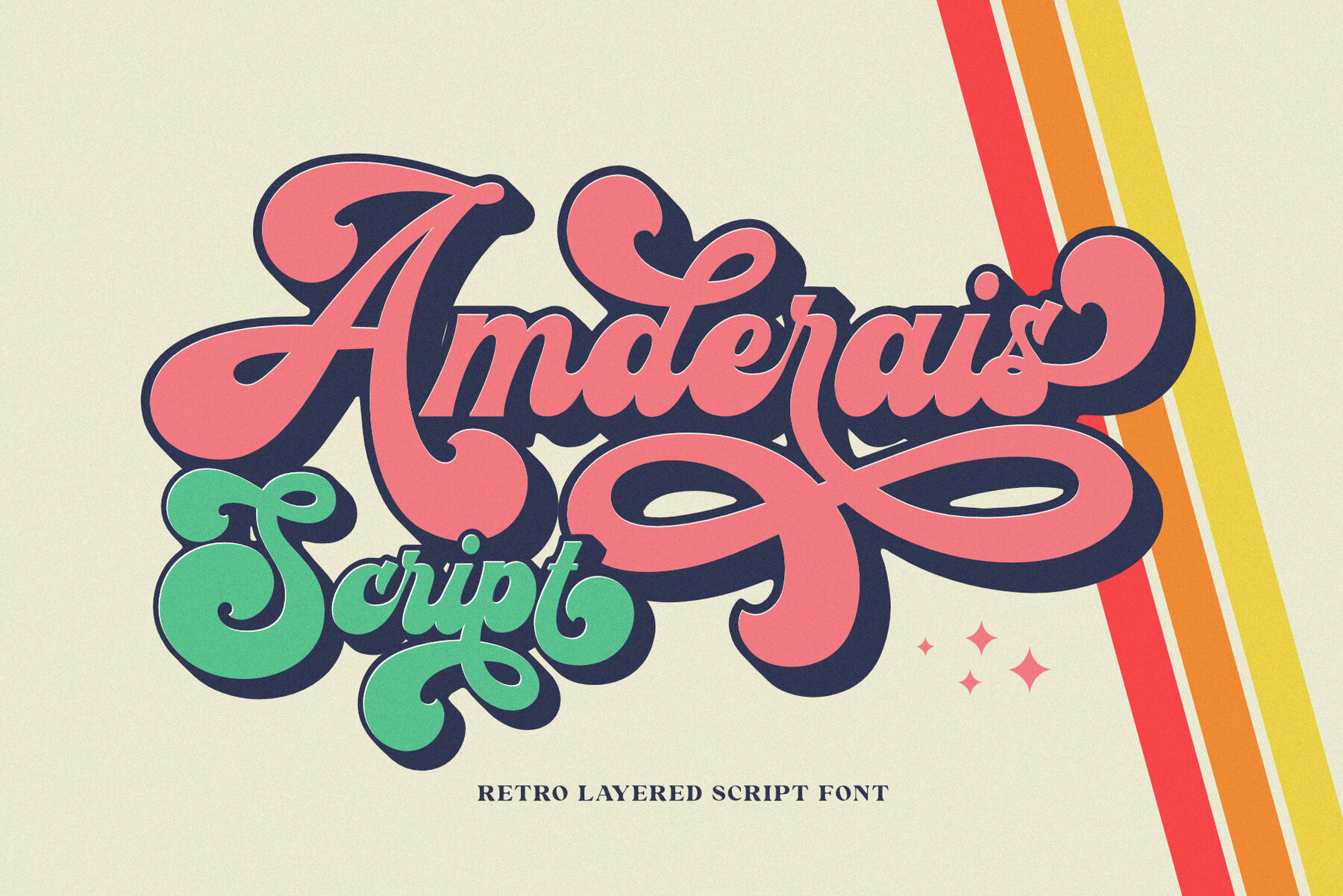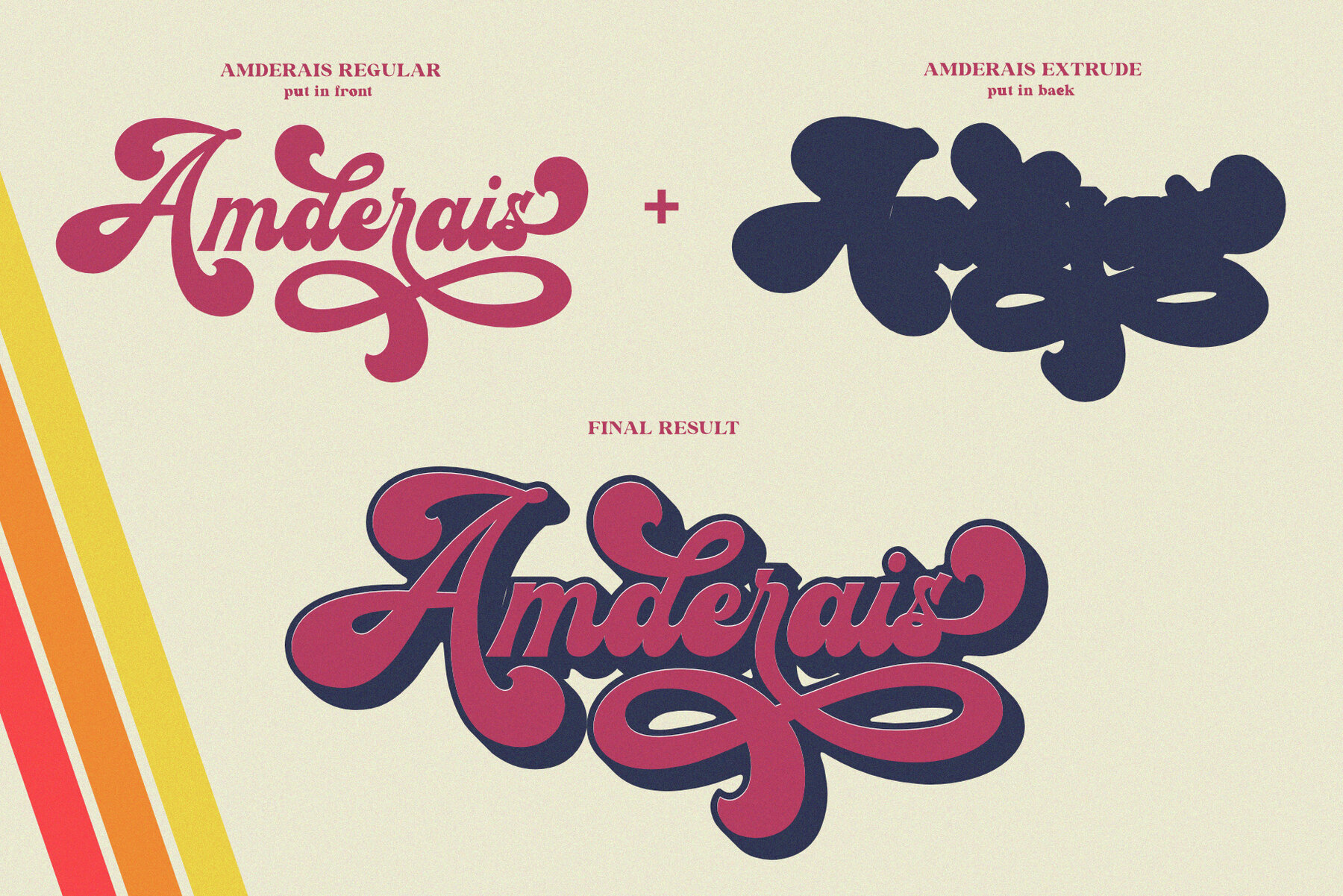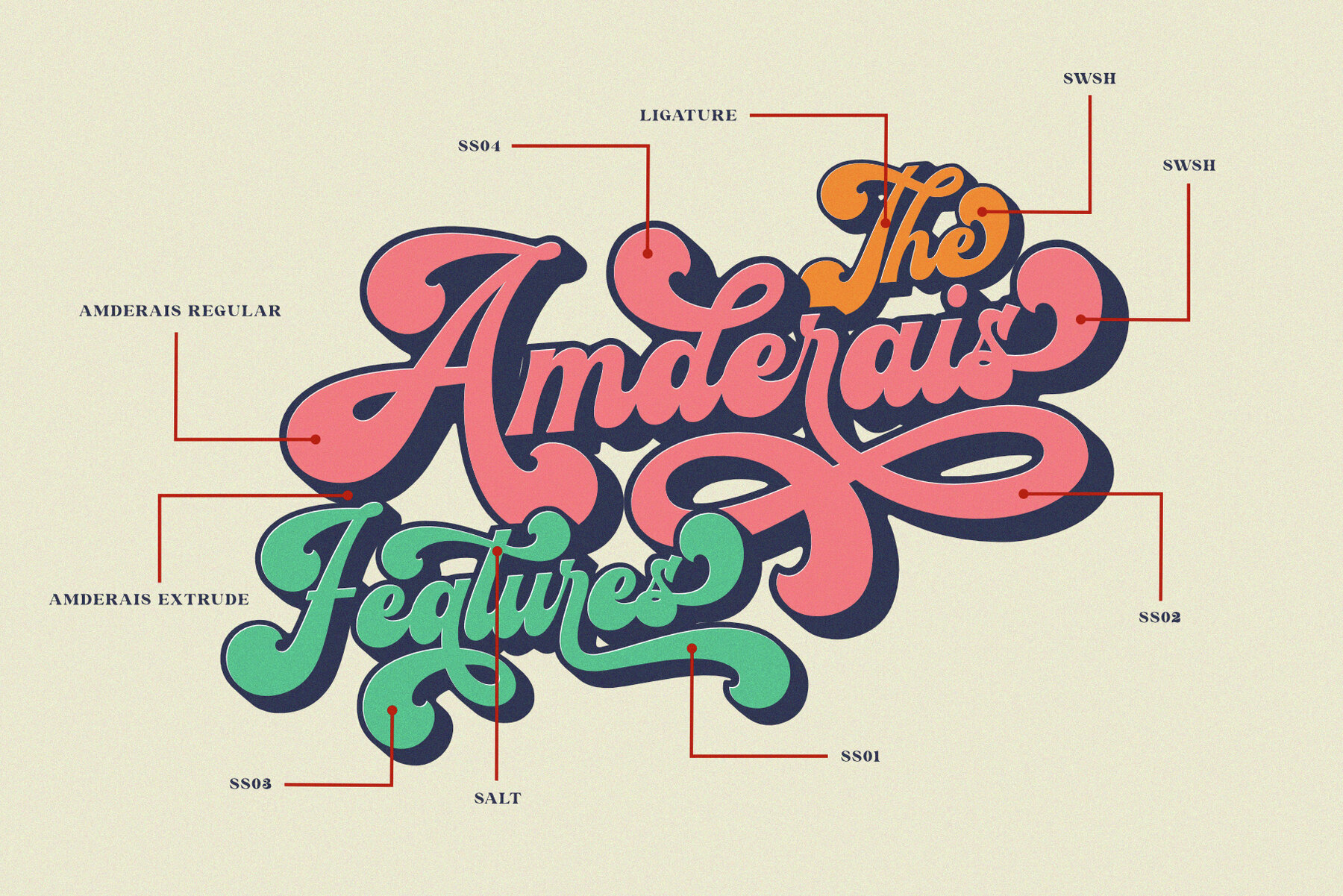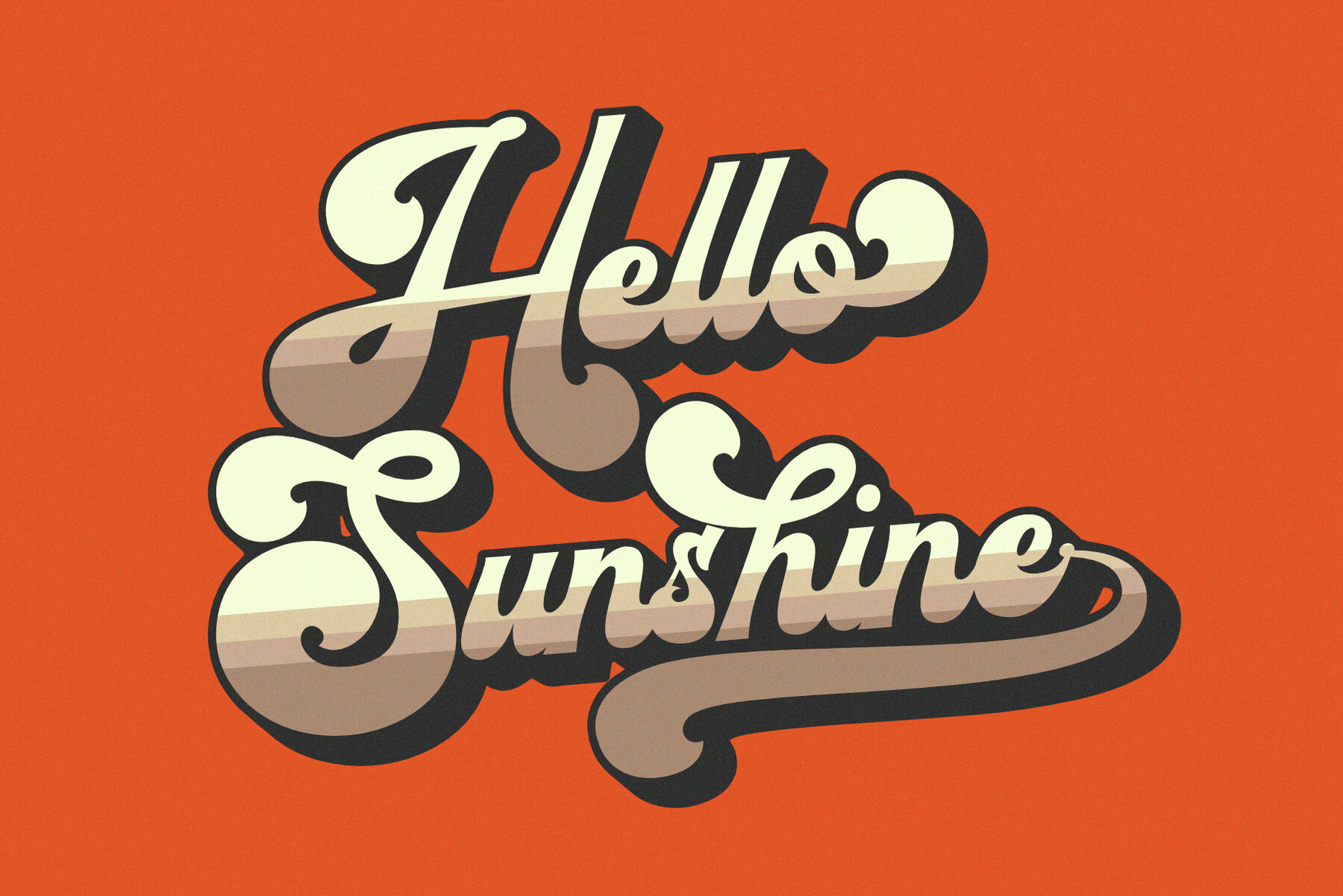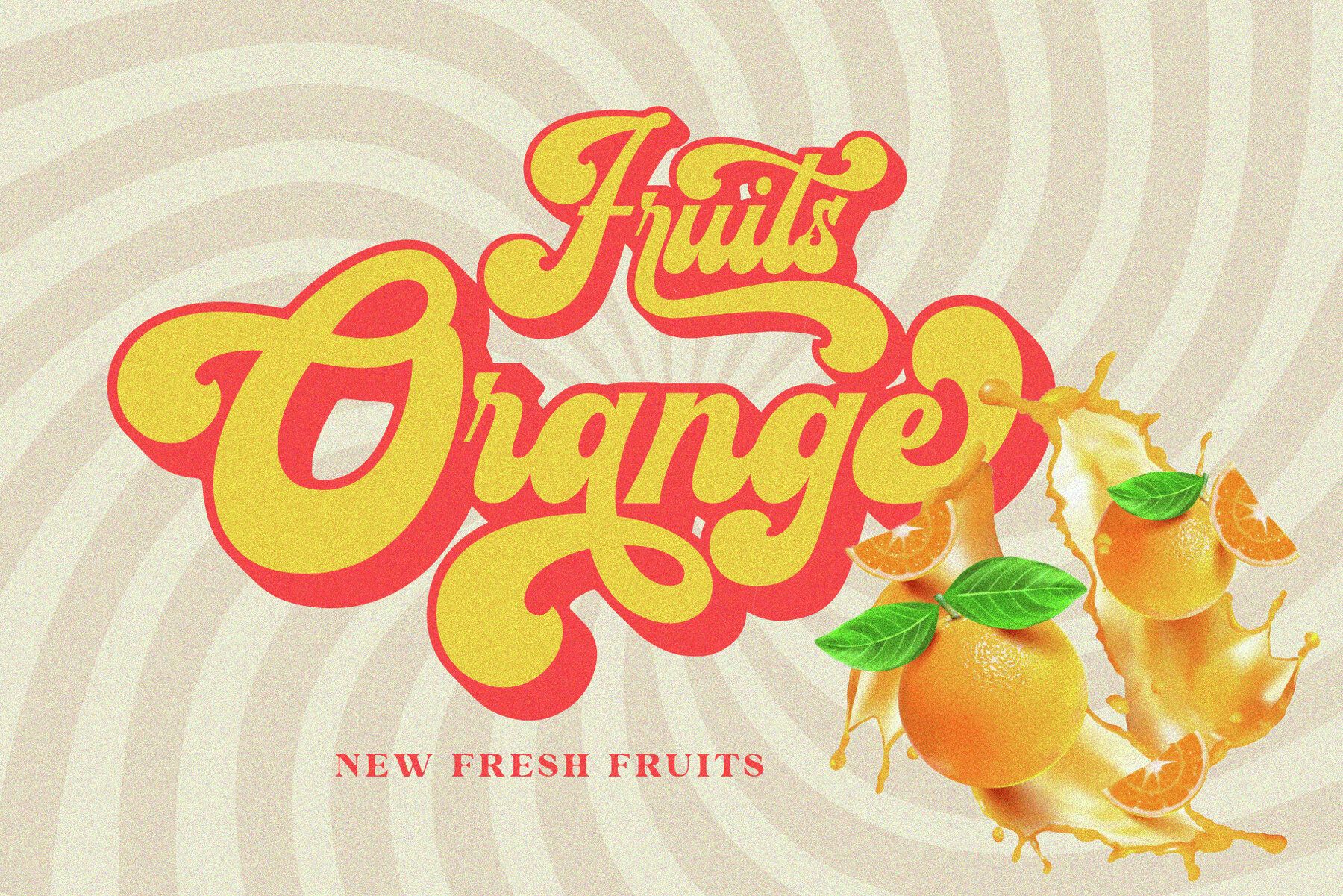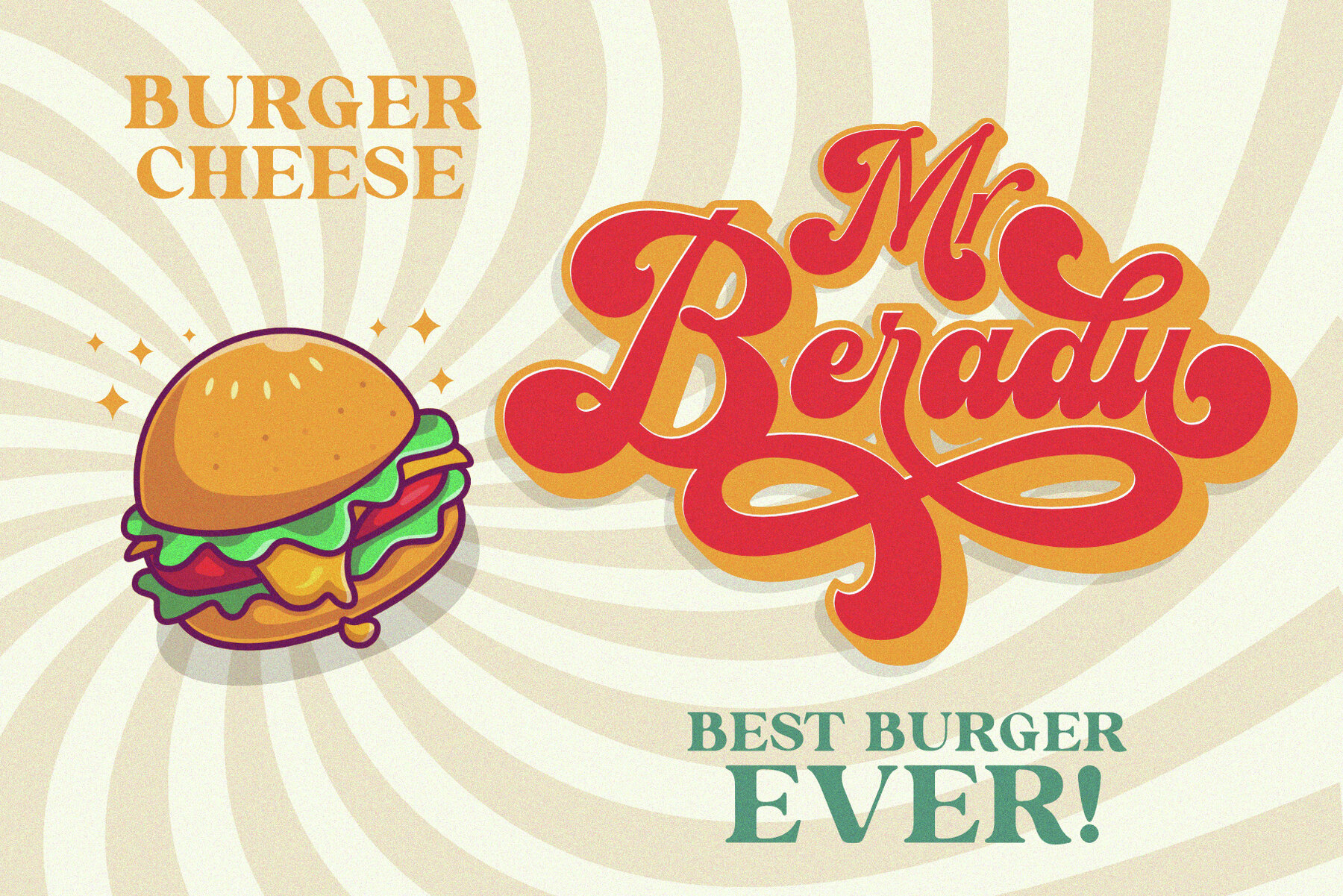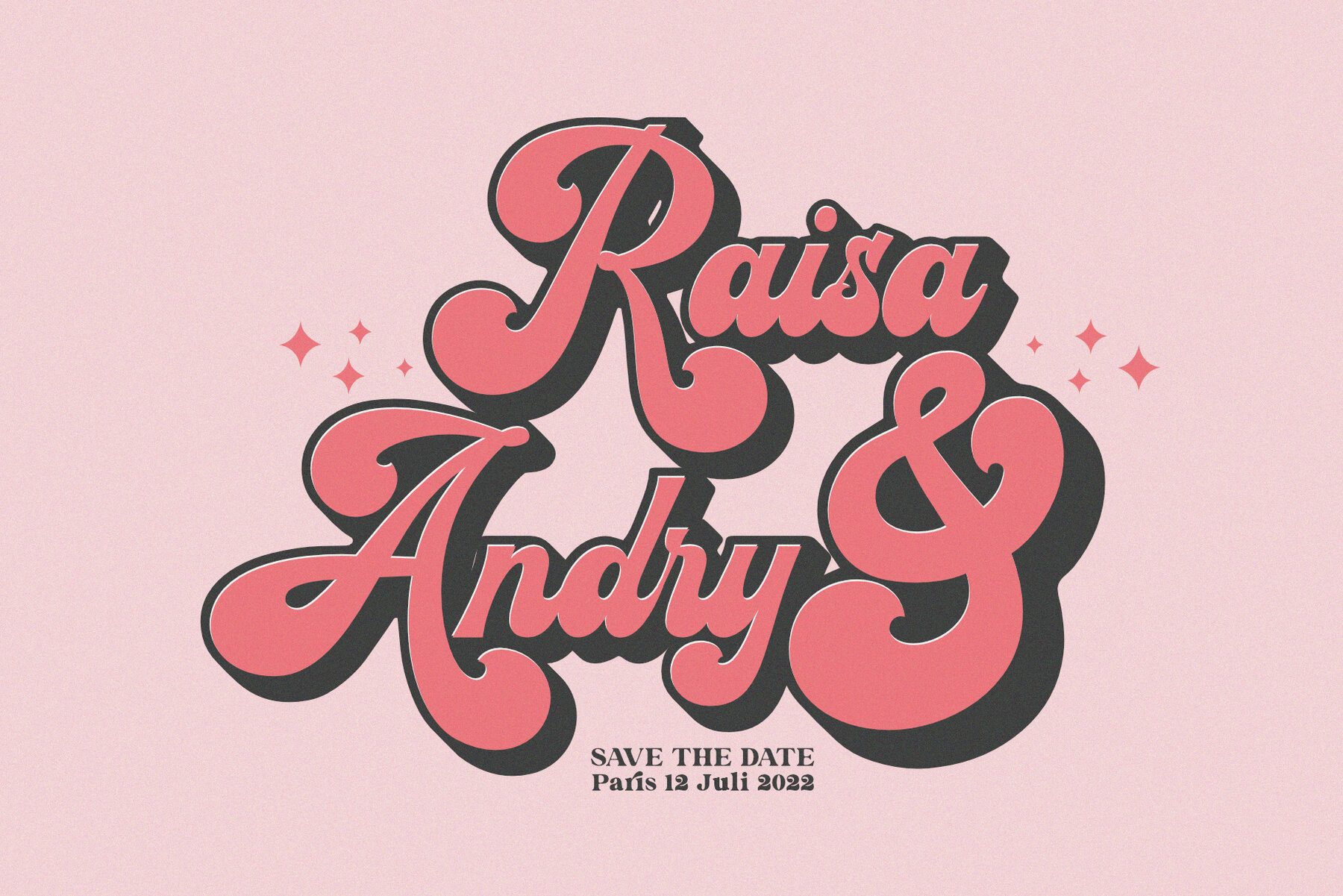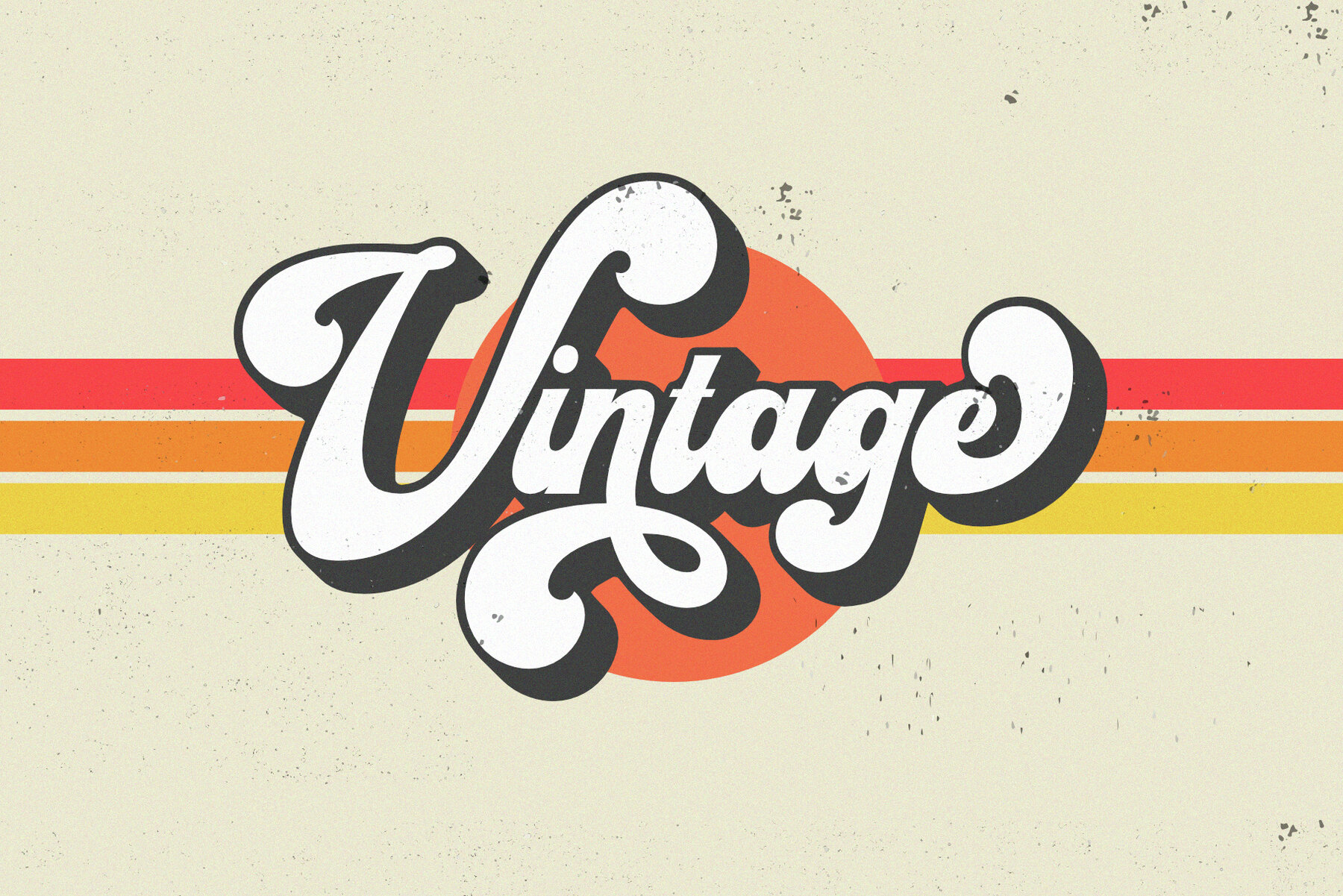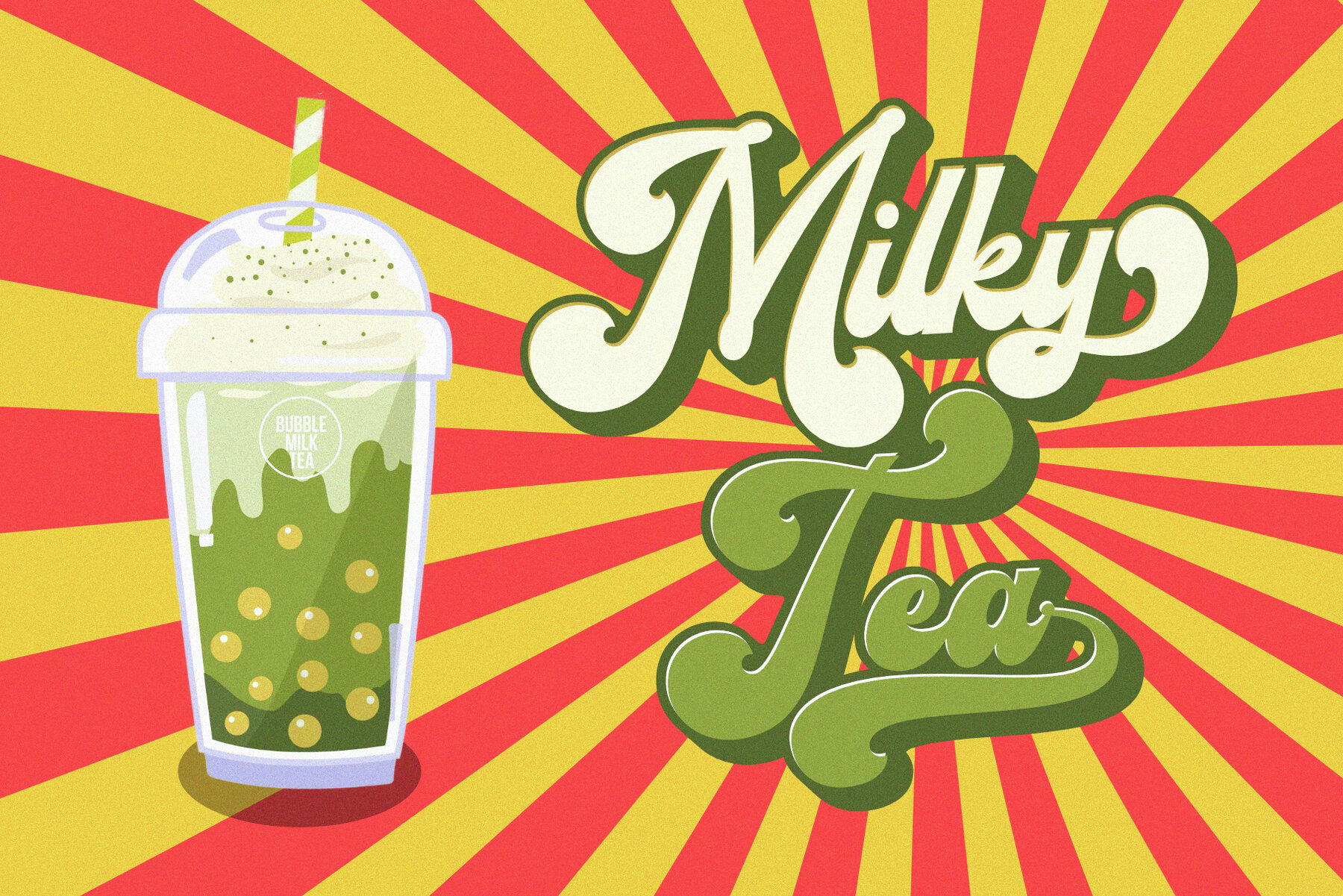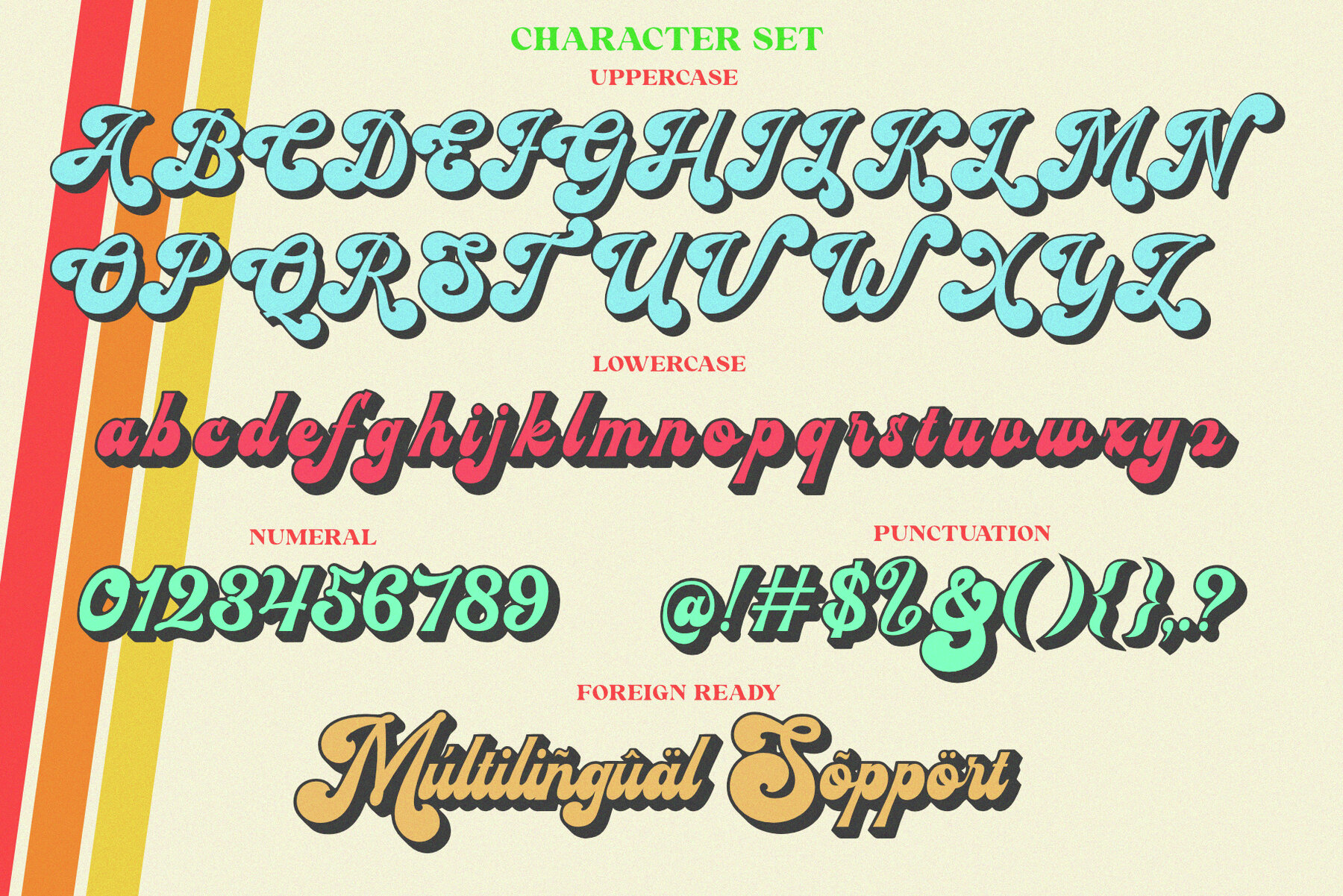
Amderais Font
Infuse your designs with a touch of nostalgia using Amderais. Inspired by the iconic retro typographic styles of the late 60s to 70s, this typeface offers an extruded version for creating striking retro effects with ease. Amderais is ideal for a variety of applications, including logos, invitations, labels, magazines, books, greeting cards, wedding cards, packaging, fashion, makeup, stationery, novels, and other advertising needs. For optimal use, we recommend employing software that supports OpenType features and the Glyphs pane, such as Adobe and CorelDraw applications, to fully explore all variations of glyphs.Amderais: Retro-Inspired Typeface with Extruded Style